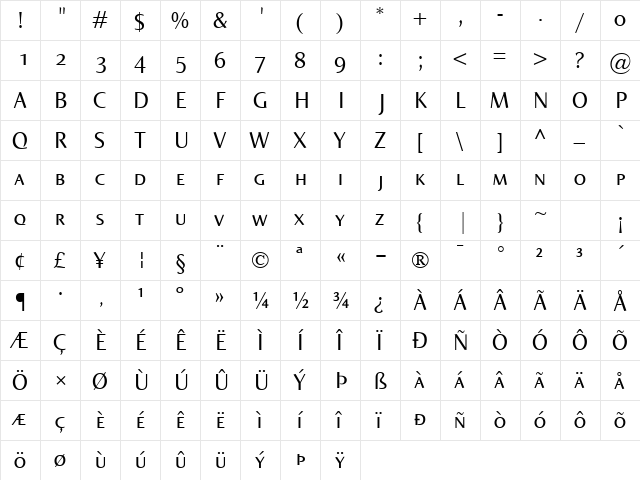
Norma SmallCaps Regular
Design Context for Norma SmallCaps Typeface
Norma SmallCaps offers clean, dependable letterforms without strong stylistic allegiance, making it a practical choice for designers who need flexibility.
Pro Tip: Use Norma SmallCaps in both headline and body roles to test its range before committing to a single application.